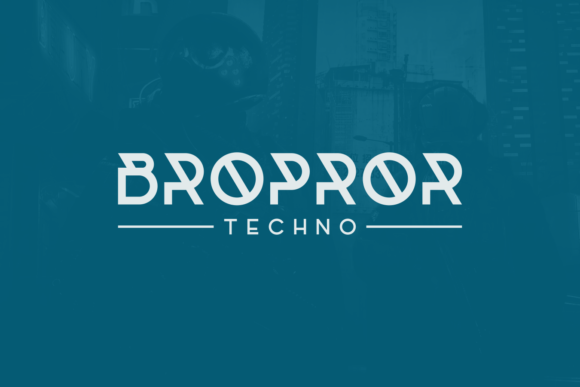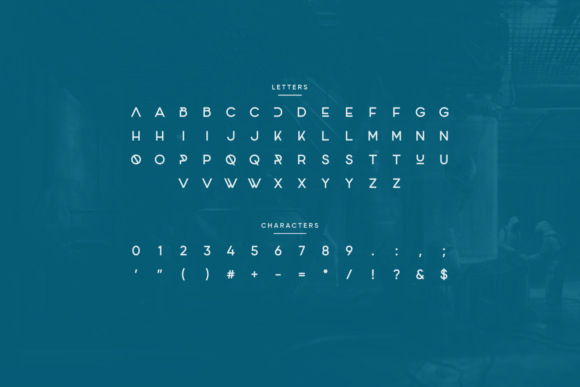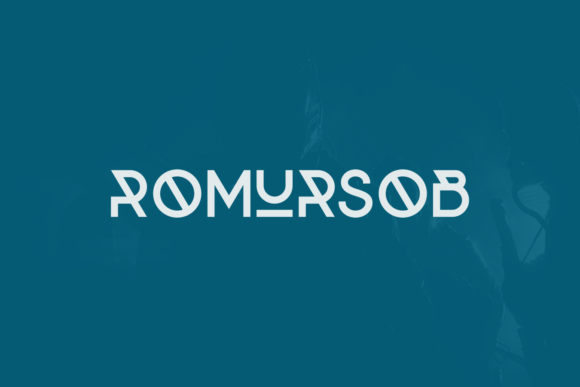
Introduction to Ropbror Font
Have you ever found yourself staring at a blank design canvas, searching for the perfect font to bring your creative vision to life? That’s exactly what happened to me last week, as I was working on a futuristic branding project. I needed a font that would exude sophistication and elegance, something that would elevate my design to the next level. And then, I stumbled upon the Ropbror Font – a game-changing design resource that has since become my go-to choice for high-quality, modern typography.
With its sleek and clean execution, the Ropbror Font is the perfect addition to any creative project, whether you’re working on a futuristic sci-fi design or a high-end corporate brand. Its unique all-caps design makes it stand out from the crowd, while its transparent background allows for seamless integration with any design element. And the best part? It’s available for free download, making it an invaluable resource for designers of all levels.
Key Features of Ropbror Font
- High-quality design resource ideal for creative projects, offering a unique and professional look.
- Features a transparent background, allowing for seamless integration into any design.
- Comes in a range of sizes, from 16 to 72 points, to suit various design needs.
- Designed with a high resolution of 300 DPI for crisp and clear display.
- Perfect for use in digital and print media, including logos, branding, and advertising materials.
Honest Review: Ropbror Font
As a designer, I’m always on the lookout for high-quality design resources to elevate my creative projects. Recently, I stumbled upon the Ropbror Font, and I must say it’s been a great addition to my design arsenal.
- ✨ Unique and quirky design style that adds a touch of personality to any project.
- ✨ Highly legible and clear, making it perfect for body text and titles.
- ⚠️ Limited character set, which may not be ideal for projects that require a wide range of characters.
- ⚠️ Not suitable for use on small screens or at very small font sizes, as it can become difficult to read.
Overall, I’m impressed with the Ropbror Font. Its unique design style and high quality make it a great choice for creative projects, especially those that require a transparent background. While it may have some limitations, I believe it’s a valuable addition to any designer’s toolkit. I’d definitely recommend it to anyone looking for a free, high-quality font.
Tips for Getting the Most Out of Ropbror Font
For the best results, use Ropbror Font with a transparent background to give your design a clean and modern look. You can also experiment with different font sizes and styles to add visual interest to your project.
Common Use Cases for Ropbror Font
Ropbror Font is a versatile design resource that can be used in a variety of creative projects, including social media graphics, presentations, and documents. Its high-quality design makes it an ideal choice for professionals and hobbyists alike.